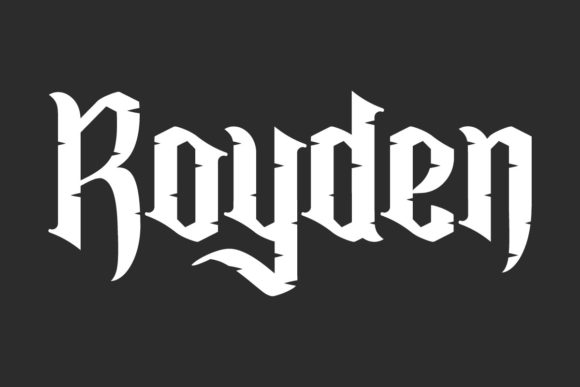
Behold, Royden Font, the blackletter masterpiece that exudes an aura of boldness and audacity. Its rough-textured strokes, reminiscent of chiseled stone, emanate a sense of strength and resilience, captivating the eyes and commanding attention. Royden's unique character makes it the ultimate choice for crafting impactful headlines that leave a lasting impression.
Step into a world of creative possibilities with Royden Font, where your artistic visions transform into stunning realities. Envision your Instagram posts adorned with captivating typography, your designs exuding a touch of sophistication, and your DIY projects infused with a distinct artistic flair. Royden Font is the key to unlocking your creative potential, turning ordinary words into extraordinary expressions.
With Royden Font, you're not just downloading a font; you're embarking on a journey of self-expression and artistic exploration. Its bold and cool demeanor demands attention, making it the perfect choice for those who dare to stand out and make a statement. Let your creativity soar as you witness the transformation of your words into captivating works of art.
Whether you're a seasoned designer seeking to elevate your projects or a passionate hobbyist seeking a touch of uniqueness, Royden Font is your perfect companion. Its versatility extends far beyond Instagram posts; it's equally at home in logos, branding materials, and any creative endeavor that calls for a bold and distinctive touch.
Join the ranks of creative visionaries who have embraced Royden Font and witnessed the magic it unfolds. Let your imagination run wild as you craft headlines that resonate with power, designs that exude individuality, and projects that radiate with artistic brilliance. Royden Font is more than just a font; it's an invitation to unleash your inner artist and create something truly extraordinary.